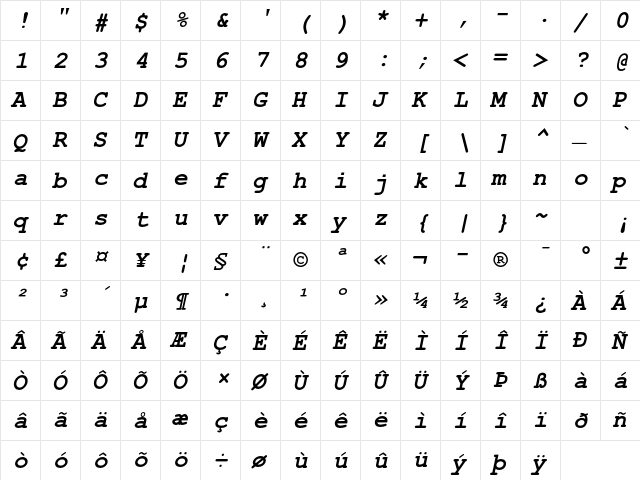
Courier PS MT Std Bold Italic Font Preview
Design Context for Courier PS MT Std Typeface
Courier PS MT Std uses fixed-width spacing throughout, giving it the structured, systematic character associated with coding environments and technical documentation. The dynamic lean of this cut emphasises speed and emphasis in any layout. The heavy weight commands attention and anchors typographic hierarchies.